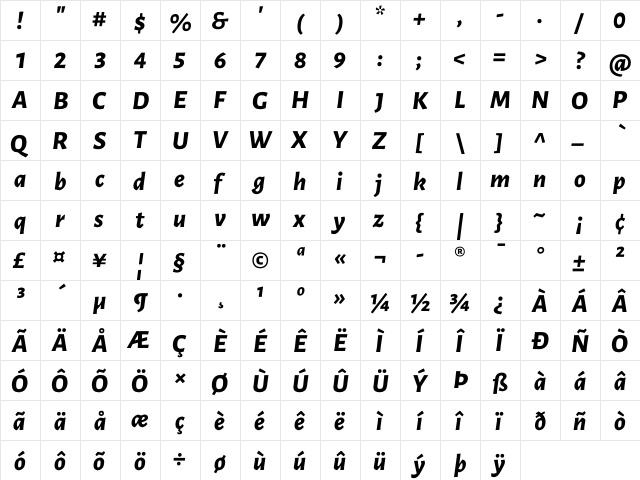
Luna Extra Bold Italic
| Foundry | Huerta Tipografica |
| Designer | Juan Pablo del Peral |
Design Context for Luna Extra Bold Typeface
Luna Extra Bold is a composed and adaptable typeface that performs quietly and consistently across a wide range of design contexts. The slanted form adds forward momentum and visual energy. Its bold stroke weight gives it real presence on the page.
Pro Tip: Try Luna Extra Bold for annotation and caption copy alongside an upright companion — the contrast in angle creates a dynamic but ordered typographic system.